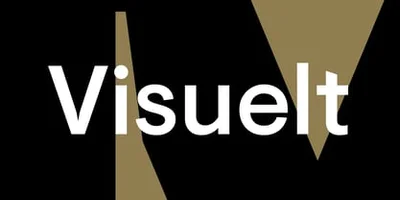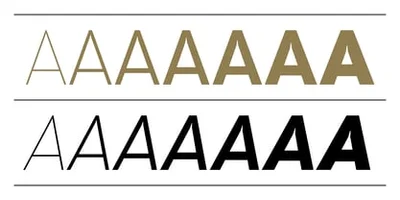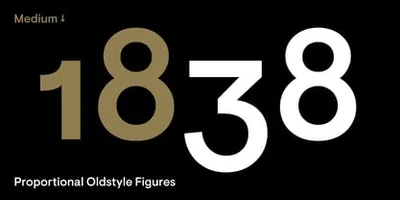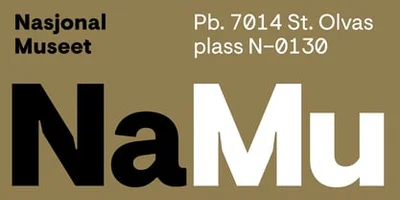
Averta vs Visuelt
Averta and Visuelt are both sans-serif typefaces sharing a warm foundation. Where Averta leans geometric, Visuelt brings neo-grotesque. Compare which suits your Branding project.
Averta
Geometric
WarmModern
Visuelt
Neo-Grotesque
WarmModern
| Feature | Averta | Visuelt |
| Language Support | latin, latin-extended, cyrillic, greek | latin, latin-extended |
| Source | Kostas Bartsokas | Colophon Foundry |
Recommended: Averta
- geometric design character
- Suited for Tech
- From kostas-bartsokas
Consider: Visuelt
- neo-grotesque design character
- Suited for Editorial
- From colophon